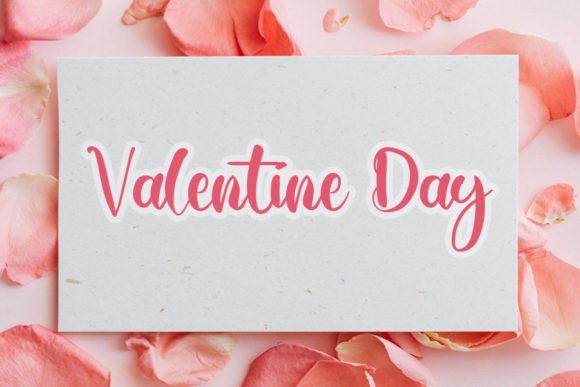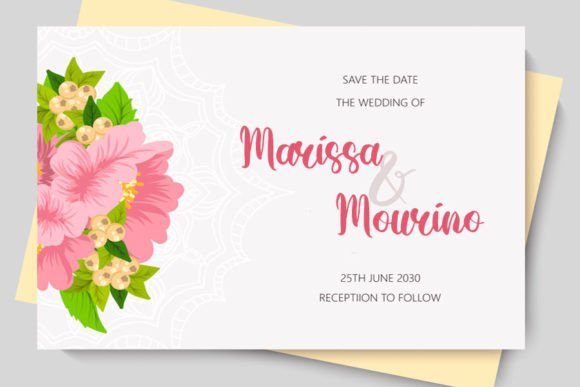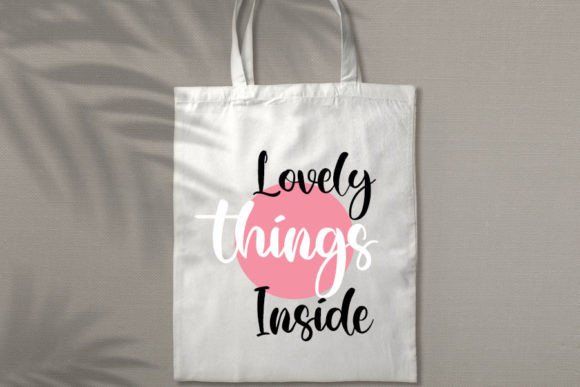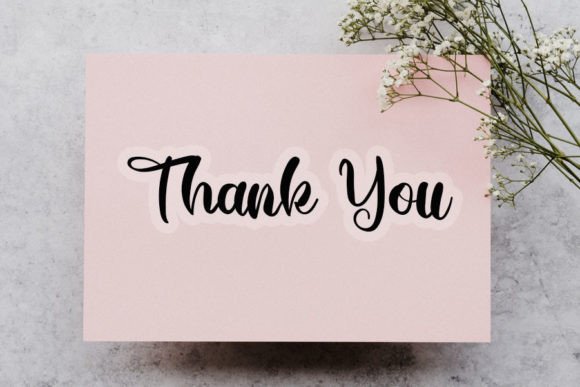
Happy New Year Font: Elevate Your Designs with Elegance and Sophistication
As the clock strikes midnight on New Year’s Eve, the world welcomes a fresh start, filled with hope and promise. What better way to usher in the new year than with a beautiful, elegant font that captures the essence of romance and sophistication? Look no further than the Happy New Year Font, a stunning calligraphy typeface that will add a touch of luxury to any design project.
A Font that Dances with Elegance
The Happy New Year Font is a romantic and sweet calligraphy typeface that boasts characters that dance along the baseline, exuding a sense of movement and fluidity. This exquisite font is designed to bring a touch of whimsy and charm to your designs, making it perfect for a wide range of creative projects. Whether you’re a designer, crafter, or DIY enthusiast, this font is sure to inspire your next masterpiece.
Adding Luxury to Your Designs
With the Happy New Year Font, you can add a luxury spark to any design project you wish to create. From elegant wedding invitations and sophisticated business cards to beautiful branding and packaging designs, this font is versatile enough to elevate any project. Its unique, hand-crafted characters will give your designs a personal touch, setting them apart from the ordinary and making them truly unforgettable.
As a designer or crafter, you’re constantly on the lookout for fresh inspiration and high-quality design assets to take your projects to the next level. The Happy New Year Font is an excellent addition to your toolkit, offering a unique and sophisticated style that’s sure to impress your clients or audience. Whether you’re working on a commercial project or a personal craft, this font will help you create stunning designs that showcase your creativity and skill.
Key Features of the Happy New Year Font
- Romantic and sweet calligraphy style: The Happy New Year Font boasts a beautiful, elegant calligraphy style that’s perfect for designs that require a touch of sophistication and whimsy.
- Characters that dance along the baseline: The font’s unique characters are designed to move along the baseline, creating a sense of fluidity and movement that’s sure to capture attention.
- Luxury and versatile: The Happy New Year Font is perfect for a wide range of design projects, from wedding invitations and business cards to branding and packaging designs.
Tips for Using the Happy New Year Font
In conclusion, the Happy New Year Font is a beautiful, elegant calligraphy typeface that’s perfect for designers and crafters looking to add a touch of luxury and sophistication to their designs. With its unique characters that dance along the baseline and versatile style, this font is sure to inspire your next creative project. So why wait? Download the Happy New Year Font today and start creating stunning designs that will leave a lasting impression!